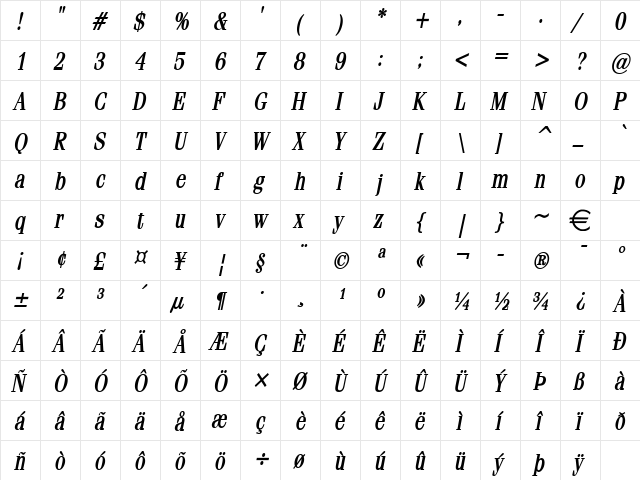
FelineCondensed BoldItalic
Design Context for FelineCondensed Typeface
FelineCondensed offers clean, dependable letterforms without strong stylistic allegiance, making it a practical choice for designers who need flexibility. The slanted form adds forward momentum and visual energy. Its bold stroke weight gives it real presence on the page. The condensed width makes it efficient for tight spaces without sacrificing legibility.
Pro Tip: Use FelineCondensed for emphasis, pull quotes, and subheadings where its slanted energy can add rhythm to the layout.